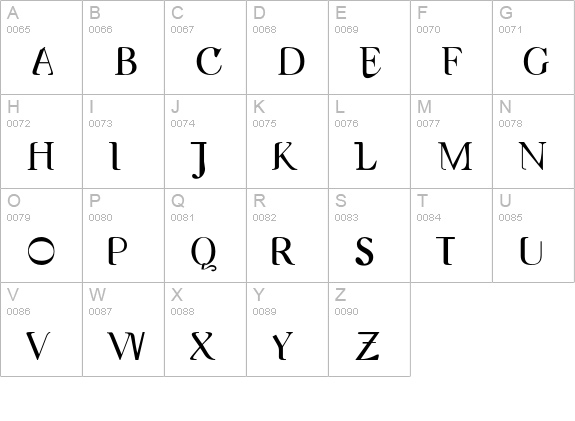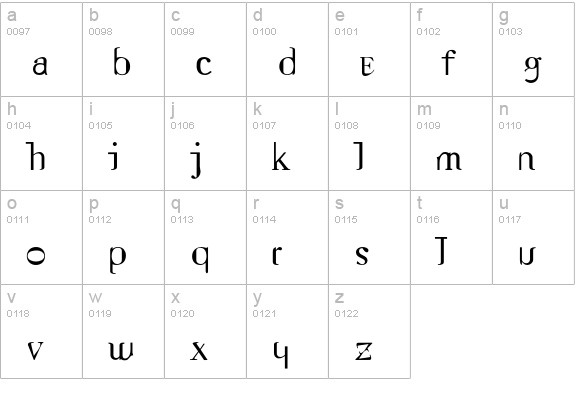
Nameless-Regular is the standard, neutral variant in the Nameless typeface family \xE2\x80\x94 well suited to general body text, paragraphs, and standard typographic work.
Nameless-Regular font is a versatile and modern typeface that adds a touch of elegance to any design project. Its clean lines and balanced proportions make it suitable for a wide range of applications, from branding and advertising to web design and print media. This font is perfect for creating sleek and professional-looking designs, with its simple yet stylish appearance. The Nameless-Regular font is easy to read and has a timeless quality that will stand the test of time. Best of all, Nameless-Regular font is available for free download at FontsMarket.com. This means you can easily access this high-quality typeface without any cost, making it a fantastic option for both personal and commercial projects. Don't miss out on the opportunity to enhance your designs with the Nameless-Regular font today!